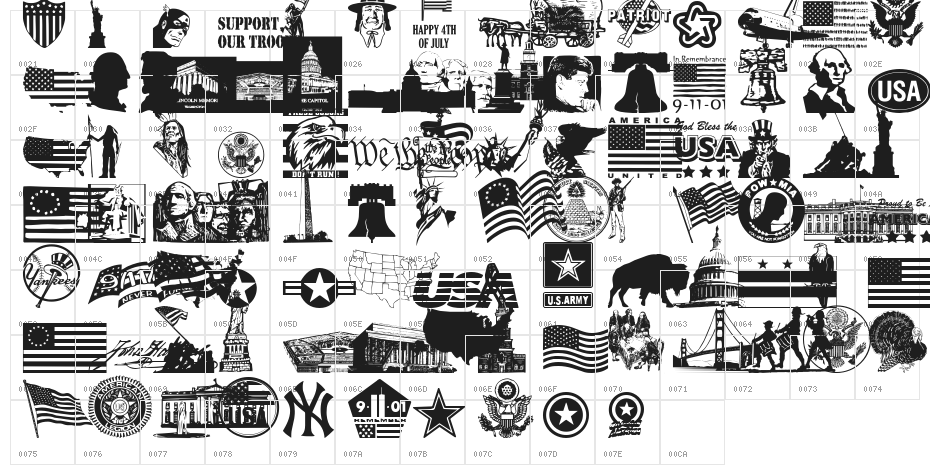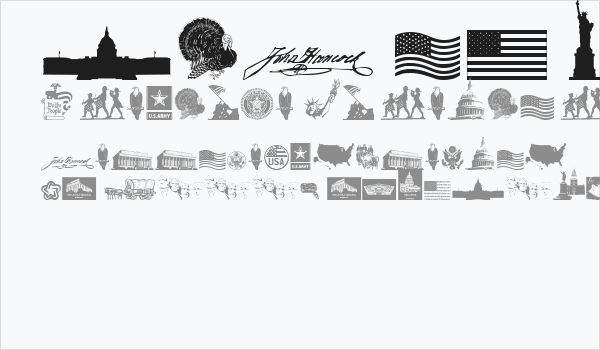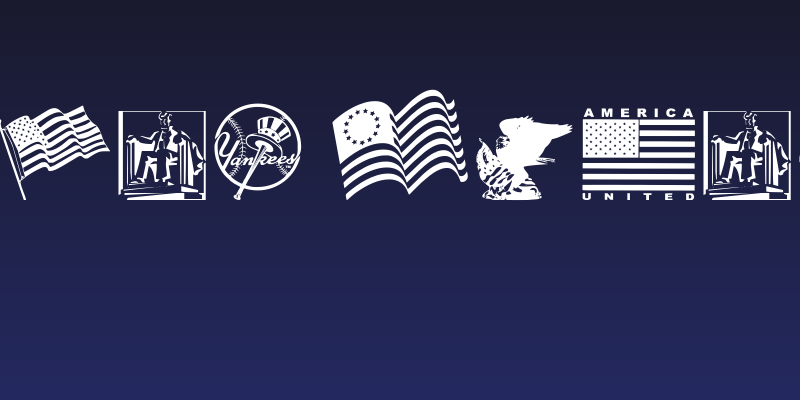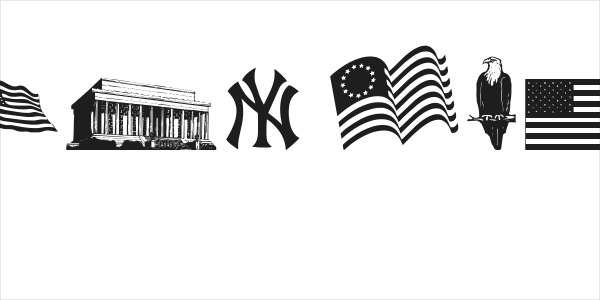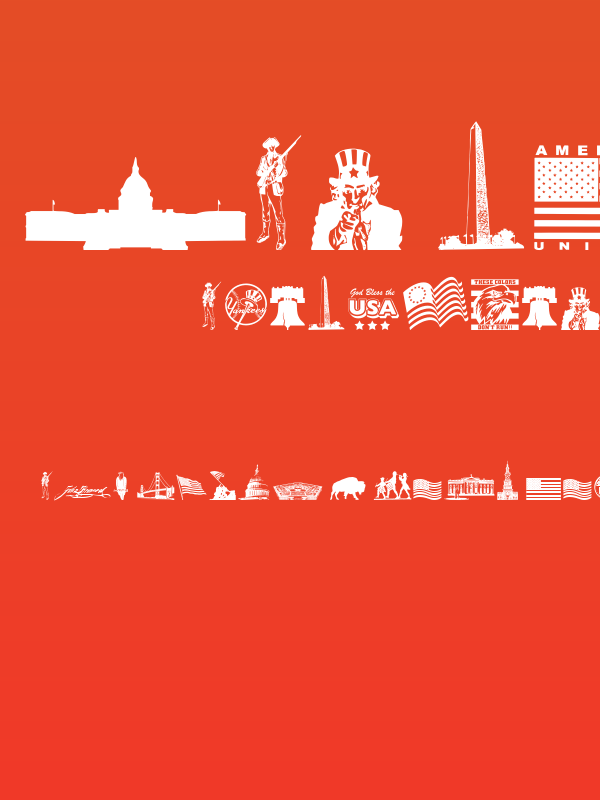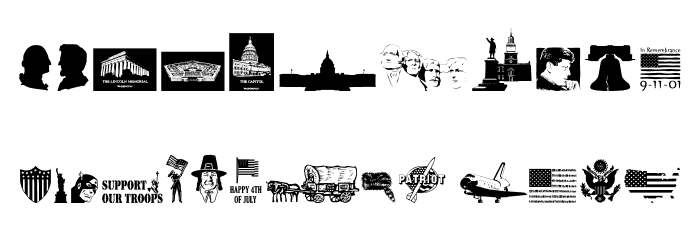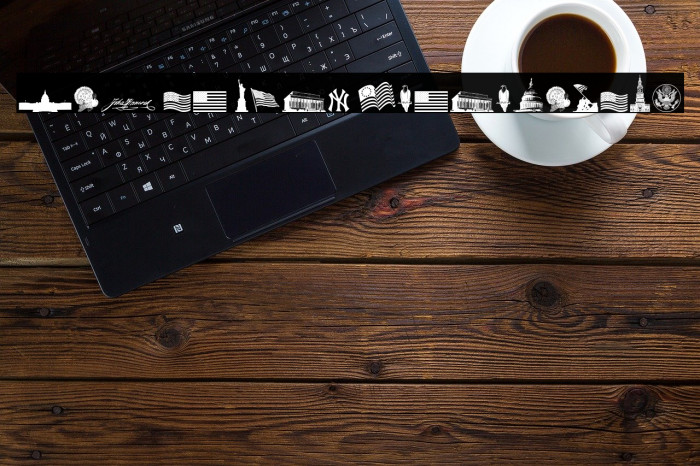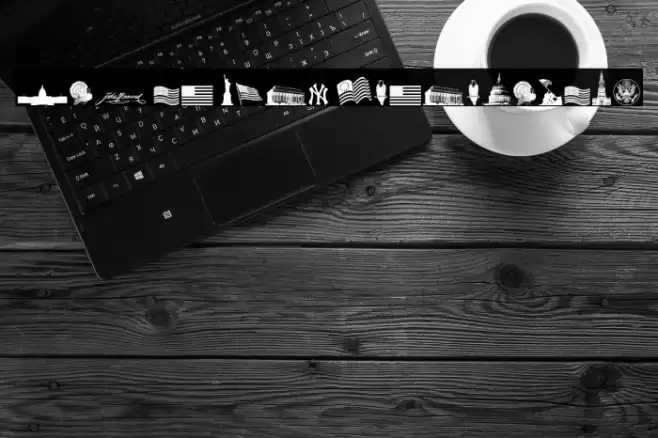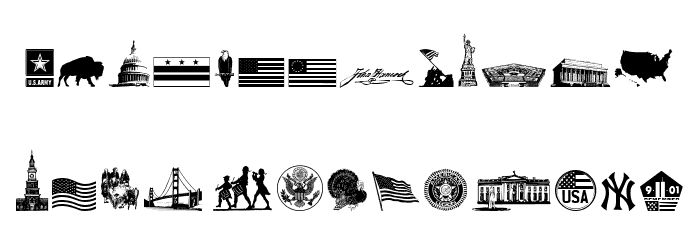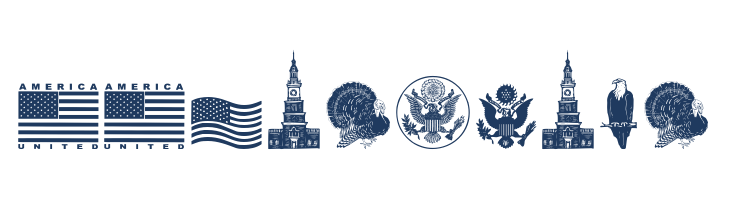
4th of July Reflections Font
4th of July Reflections Description
A decorative display font composed entirely of patriotic American-themed illustrations and icons, including historical figures, monuments, flags, and symbols, rendered in a bold, high-contrast black-and-white silhouette style.
| Overall Style | Decorative, Patriotic, Thematic |
| Use Case | Headlines, Posters, Themed Graphics, Logos |
| Proposed Projects | Ideal for Independence Day event posters, educational materials, themed party invitations, patriotic merchandise, and holiday decorations. |